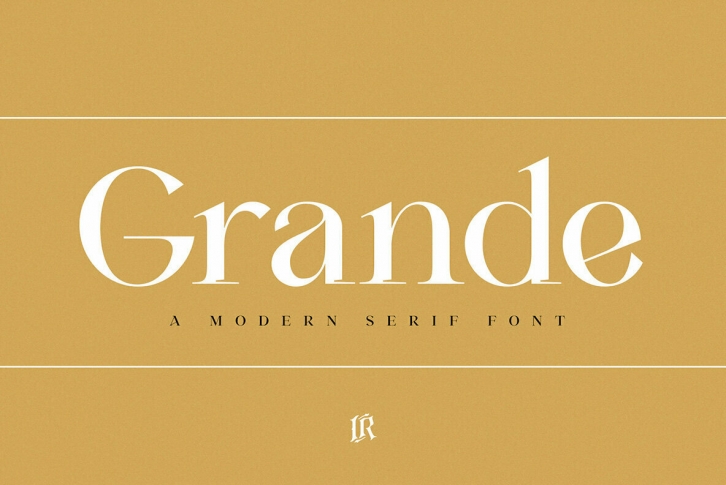
Grande is a modern serif font inspired by luxury fashion brands. It looks amazing at display sizes and is easily readable in text size. There are two versions of this font :Â REGULAR (with cuts) and SOLID.
Grande is a serif font made mainly for headlines, titles, and other short texts and is well-suited for advertising, fashion mood board, branding, logotypes, packaging, titles, editorial design and modern and social media.